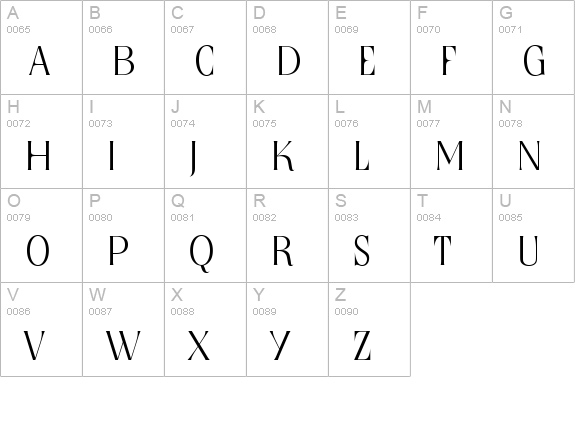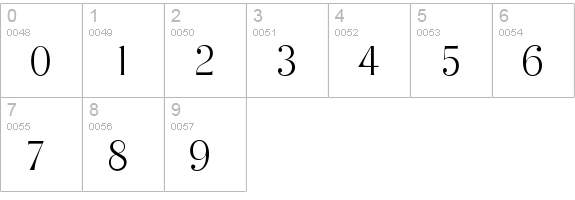
Nashville-Xlight Font Details
Nashville-Xlight is a modern and elegant typeface that exudes sophistication and charm. With its delicate strokes and clean lines, this font is perfect for creating sleek and stylish designs. The Nashville-Xlight font is versatile and can be used for a variety of design projects, from branding to editorial design. The best part? Nashville-Xlight is completely free to download at FontsMarket.com. This means you can add this beautiful font to your collection without any cost. Whether you are a seasoned designer or just starting out, Nashville-Xlight is a must-have font that will elevate your projects to the next level. Don't miss out on this amazing opportunity to enhance your designs with the Nashville-Xlight font. Download it today for free at FontsMarket.com and start creating stunning visuals that will leave a lasting impression.